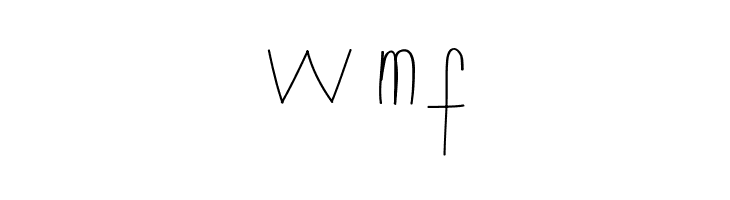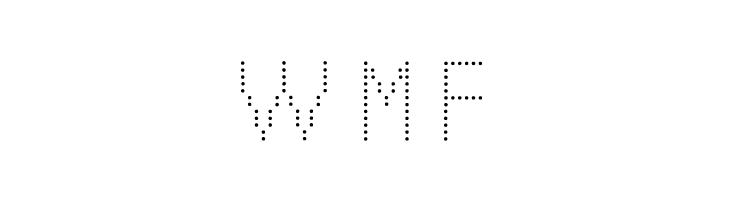
A modern, ultra-lightweight font with a minimalist and elegant design.
A bold, geometric font with strong, angular lines and minimal spacing.
A bold, geometric font with angular shapes and a modern, industrial style.
Ultra-bold, geometric font with a strong, modern presence.
A futuristic, angular font with sharp, jagged edges and a bold, dynamic style.
A sleek, modern font with thin, sharp lines and a minimalist style.
A bold, elegant script font with flowing, connected characters.
A bold, geometric font with a modern, tech-inspired aesthetic.
A bold, two-tone font with striking contrast and modern elegance.
A bold, geometric font with strong, thick strokes and a distinctive character set.
A bold, decorative font with a 3D effect created by diagonal lines.